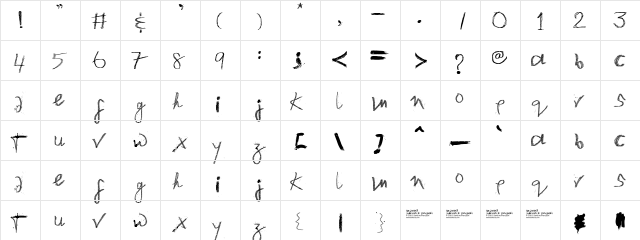
i'mWeird Subhashish Handwriting
| Foundry | Subhashish Panigrahi, eOdissa.com |
| Designer | Subhashish Panigrahi |
| Year | 2010 |
Design Context for i'mWeird Typeface
i'mWeird brings a calligraphic fluidity to the page — its connecting strokes and expressive curves give it an unmistakably human quality.
Font Pairing: Combine i'mWeird with a simple geometric sans for maximum contrast — the tension between flowing curves and clean structure is a classic typographic pairing.
Pro Tip: Use i'mWeird for short runs of text — names, titles, or taglines. Extended body copy in script faces tires the eye quickly.